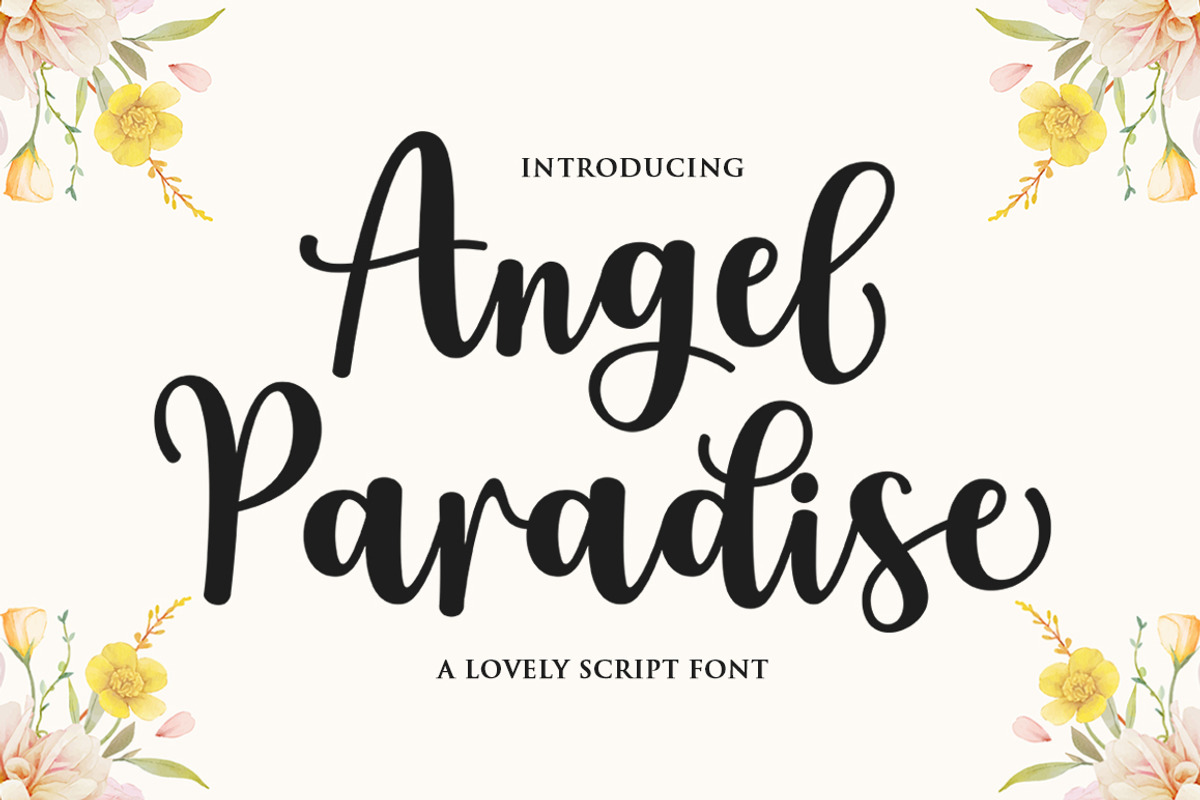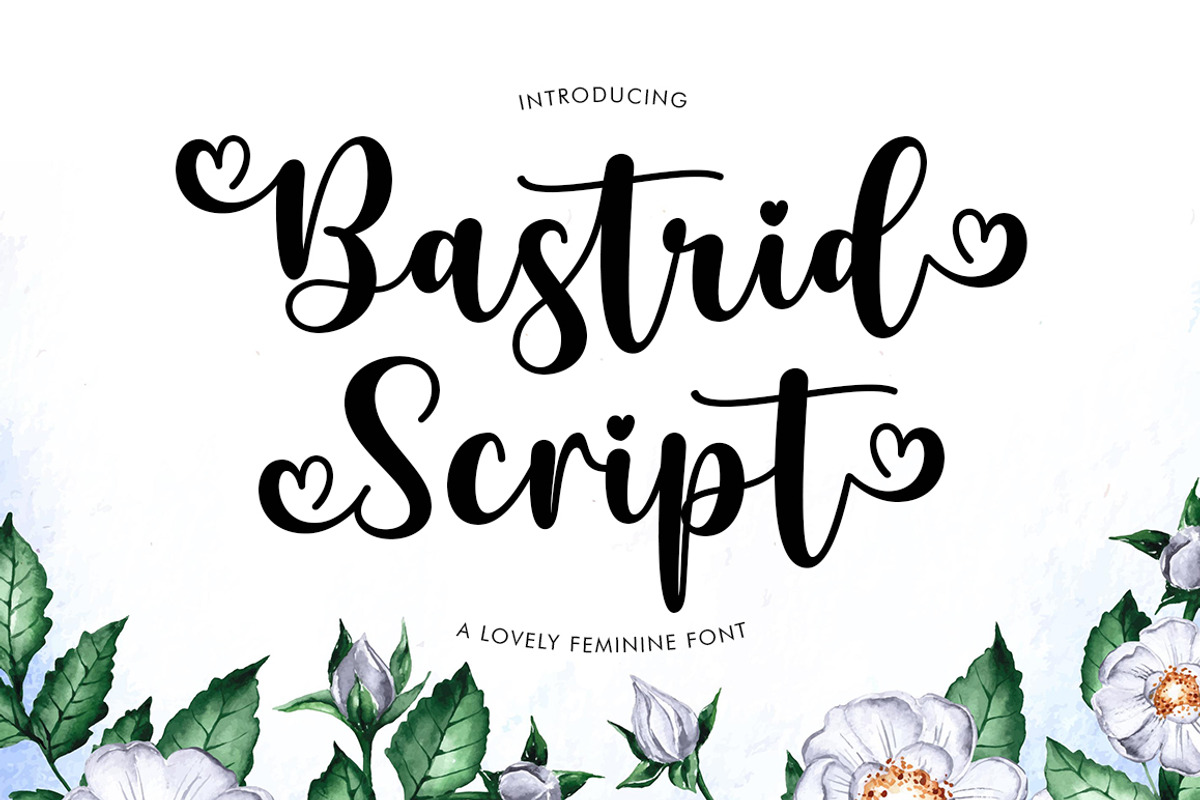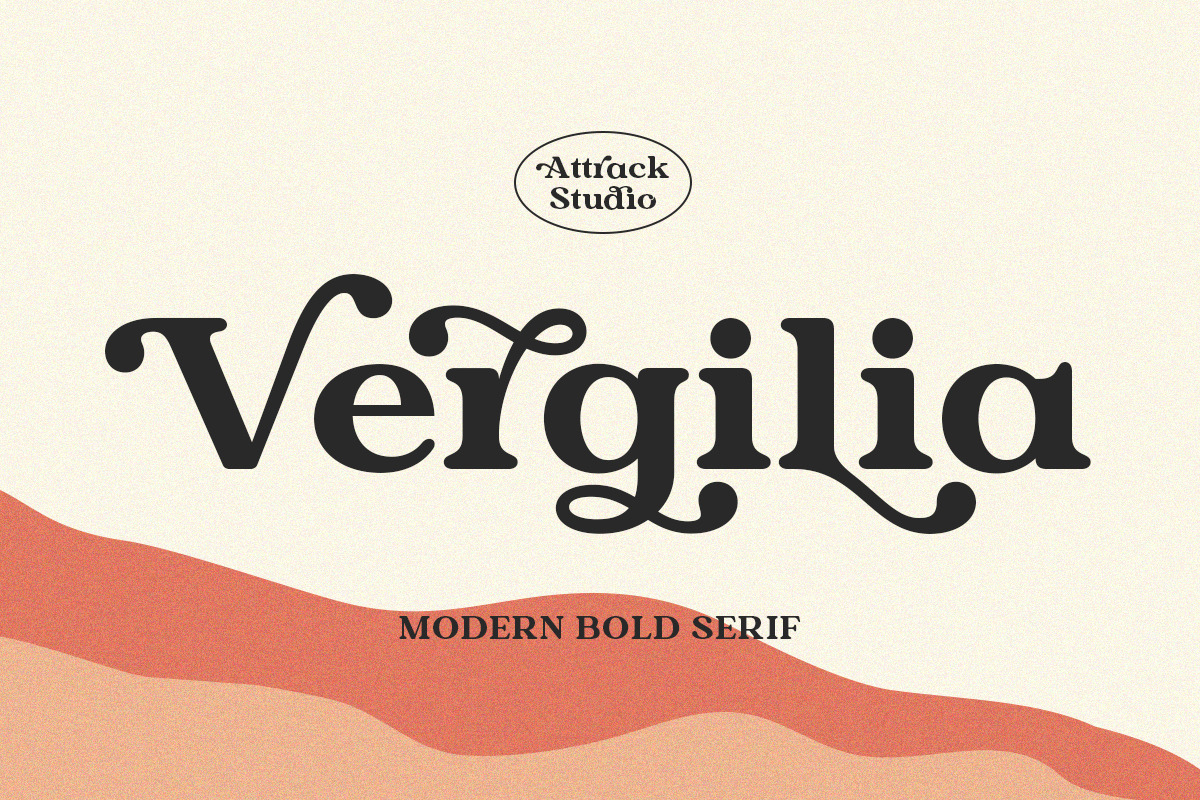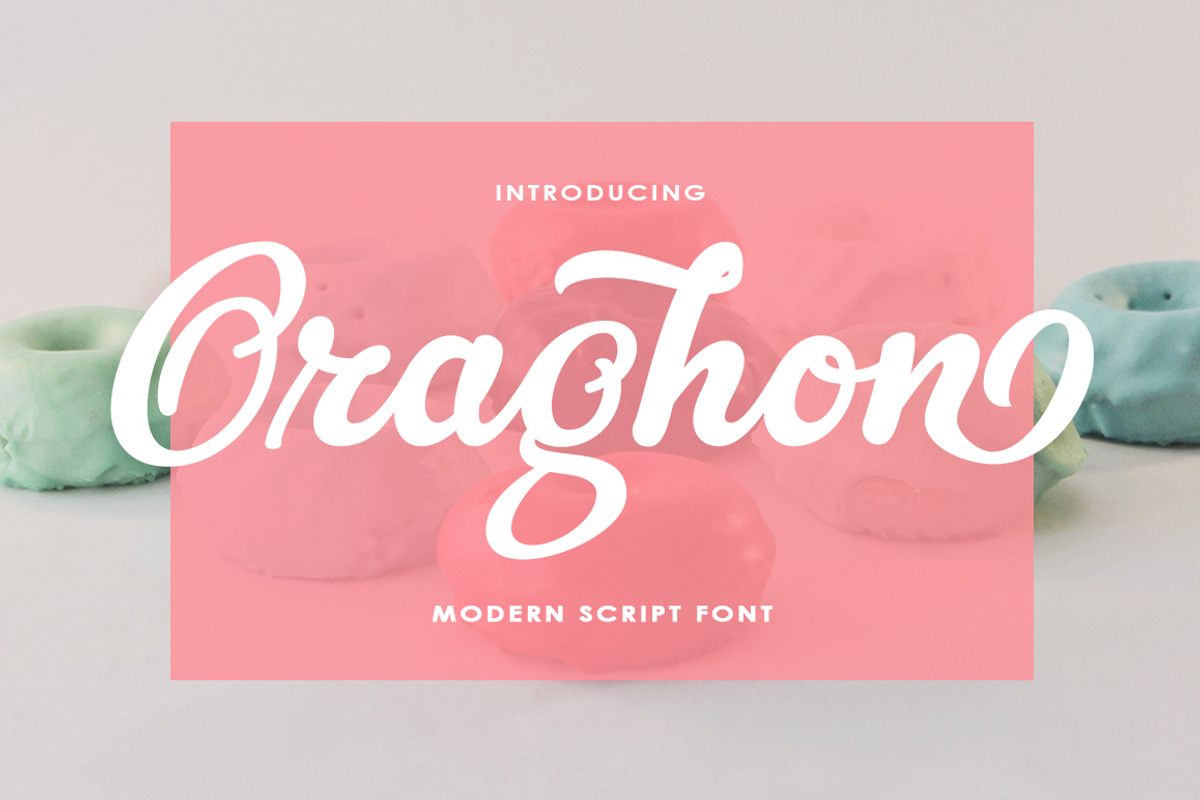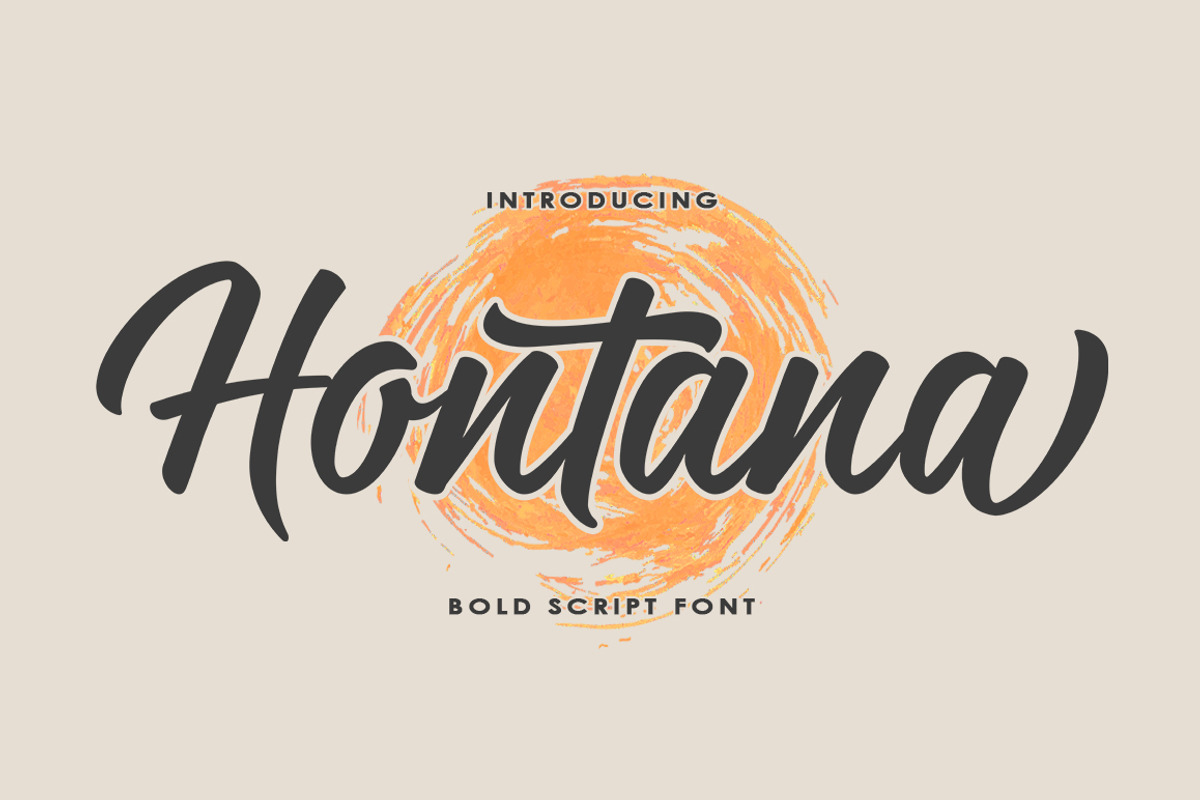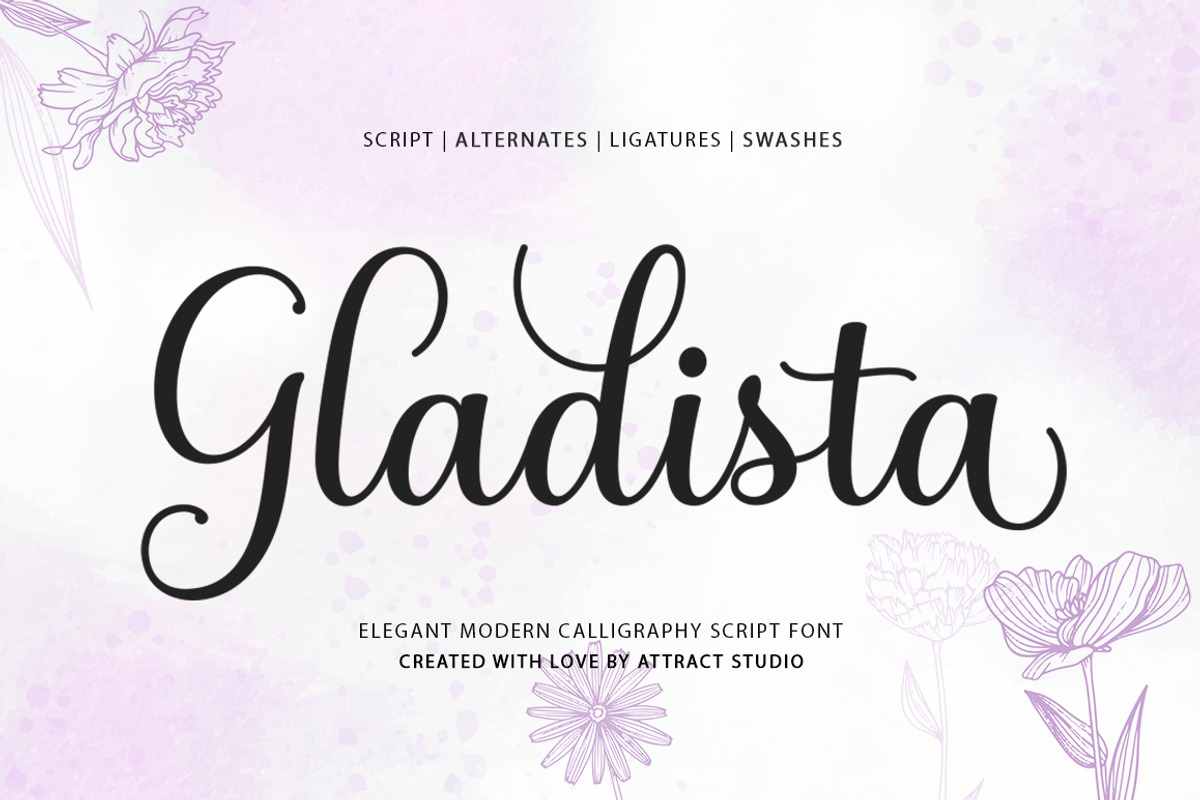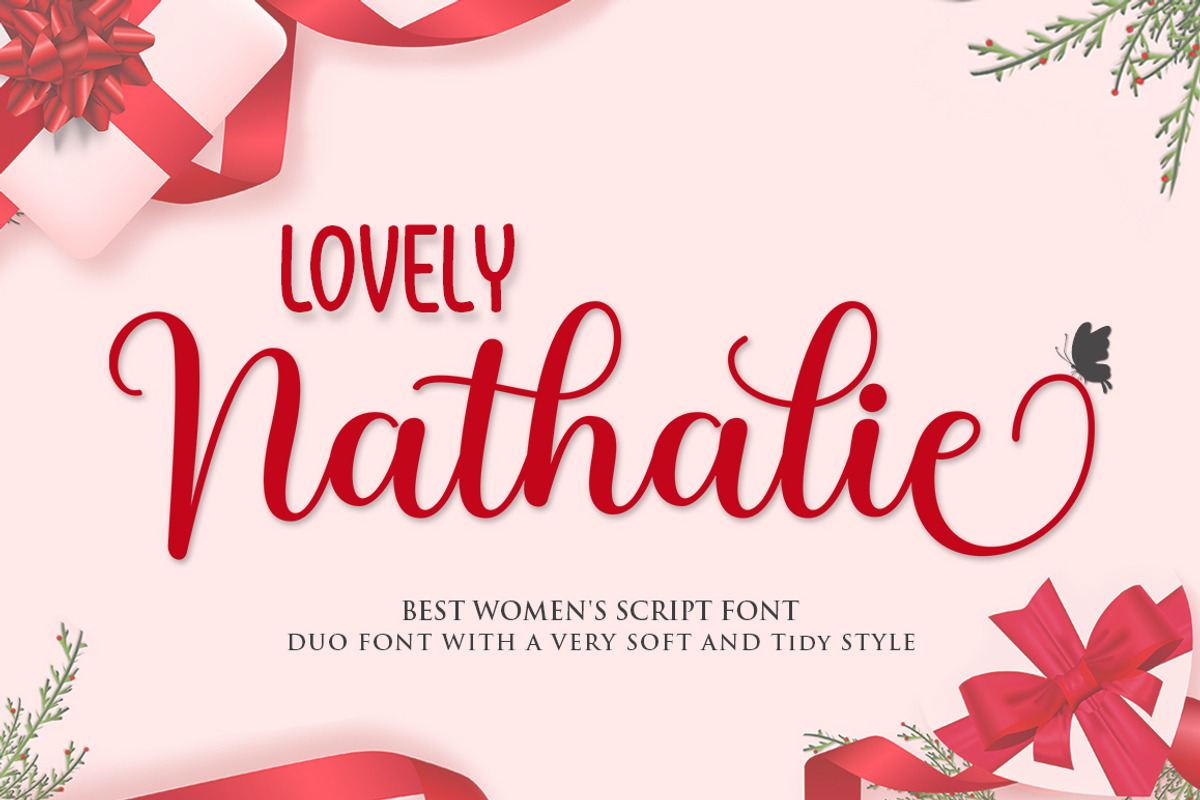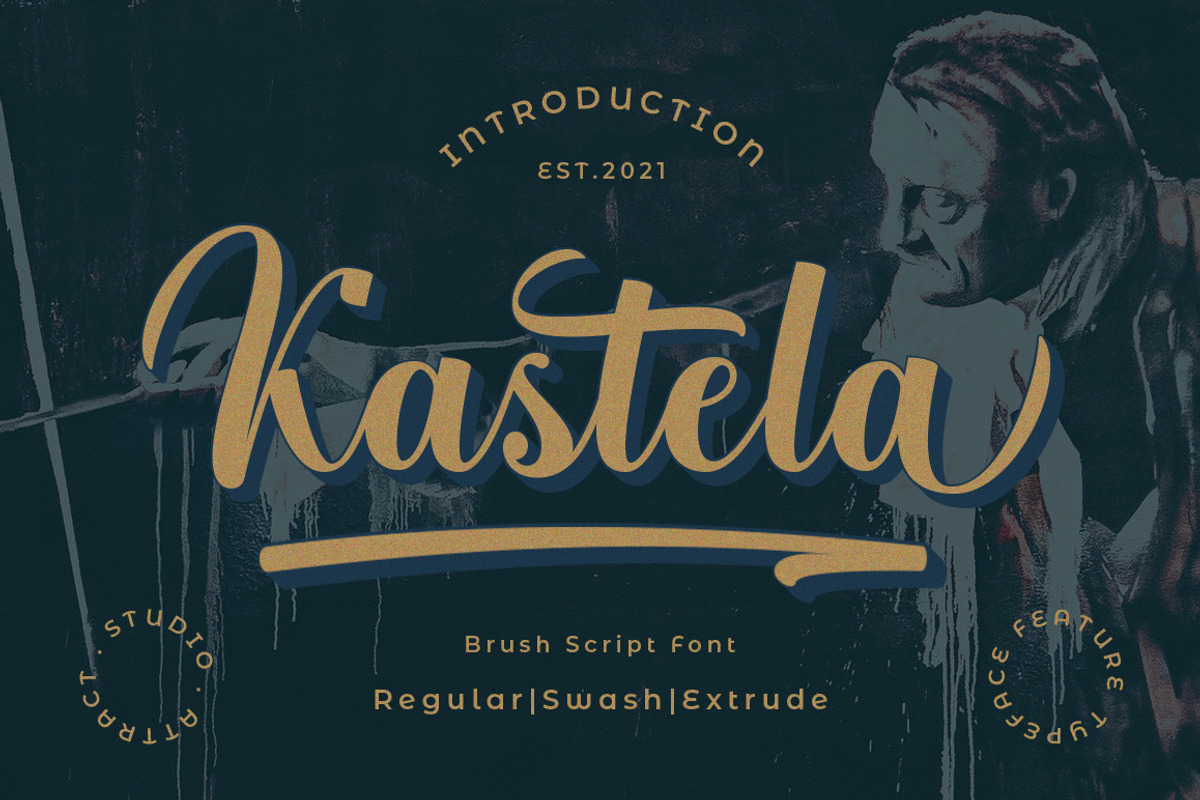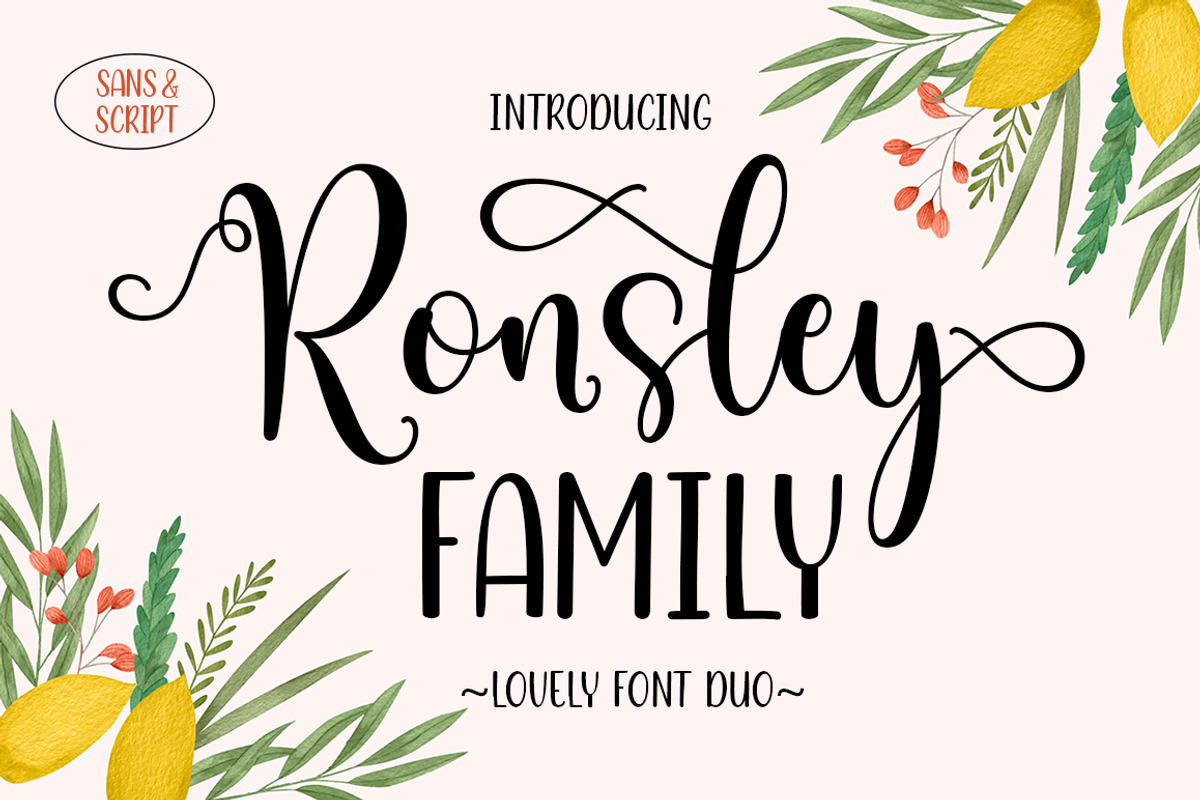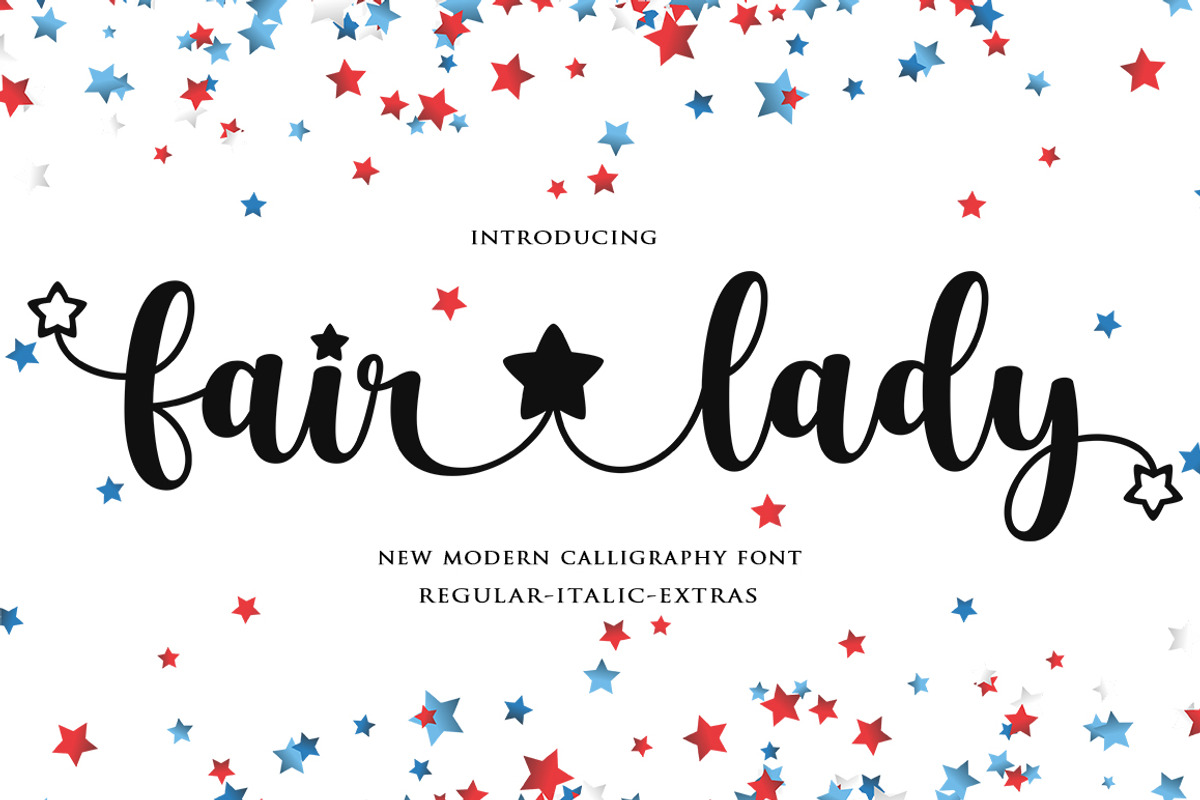
The Beautiful Font Bundle
This collection includes a wide variety of font styles. Includes some of the best selling fonts.This bundle includes a variety of font styles such as, serif, calligraphy, brush lettering, handwriting as well as monoline and many more with hundreds of glyphs, including alternatives, binders, slashes, and international language support. Which can be accessed using intelligent OpenType programs such as Adobe Illustrator, Adobe InDesign, CorelDraw X6-X7, Microsoft Word 2010 or later.
All fonts are perfect for branding, headings, signatures, logos, blogs, wedding invitations, t-shirts, letterheads, merchandise, signage, labels, news, posters, badges etc.